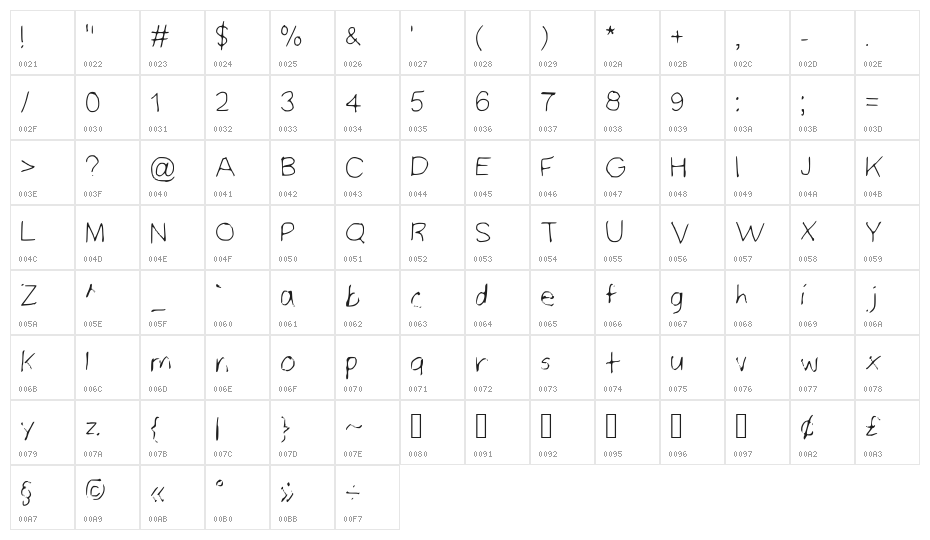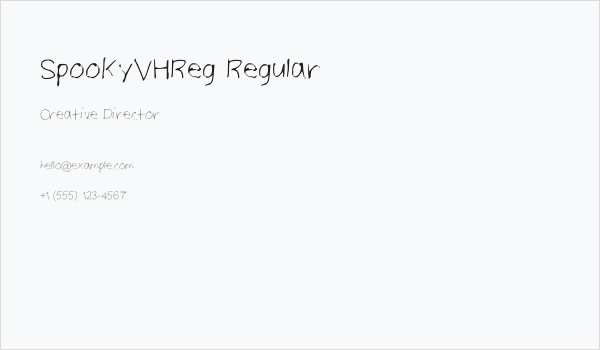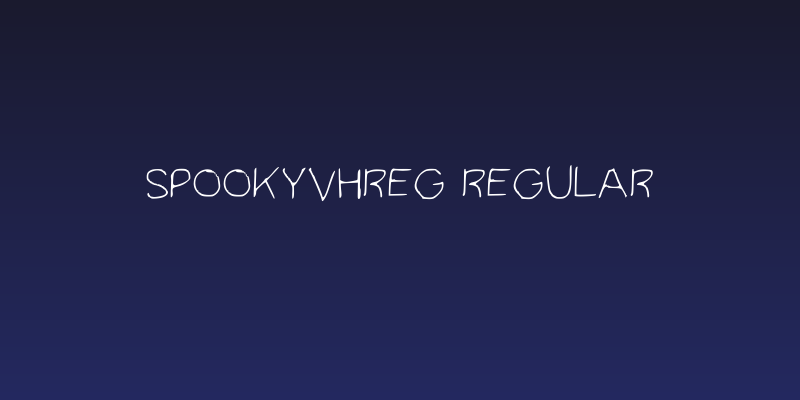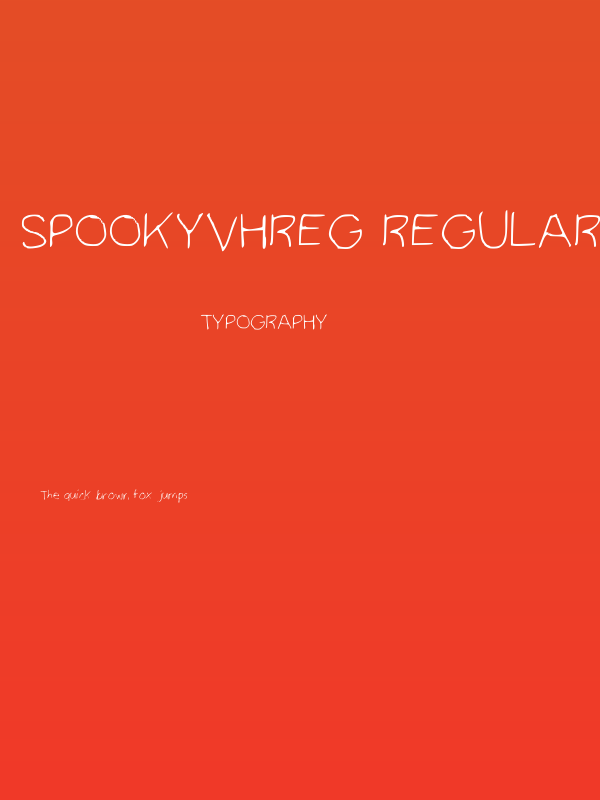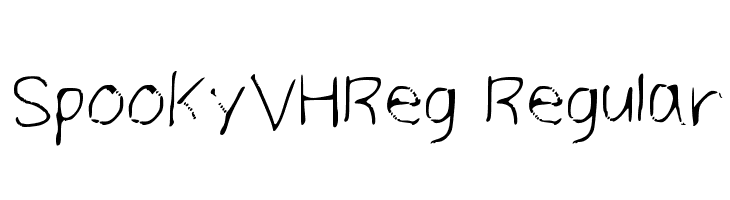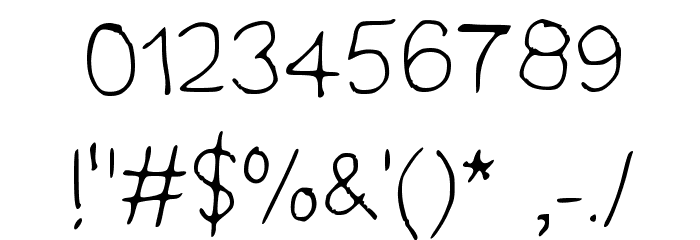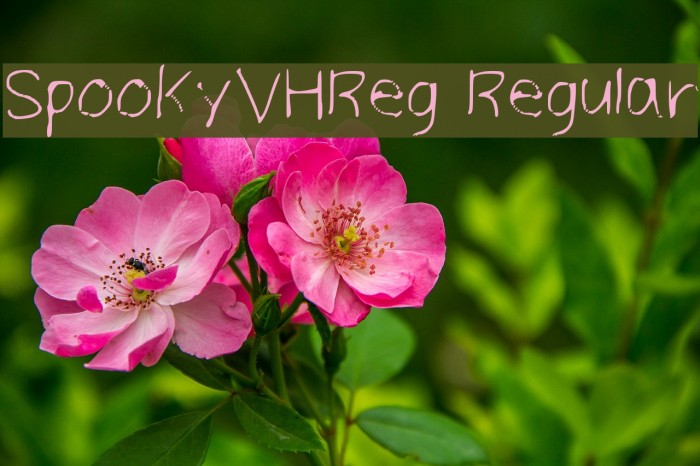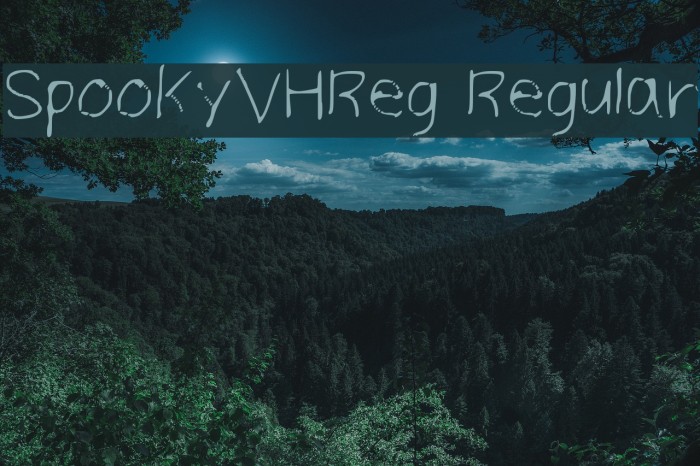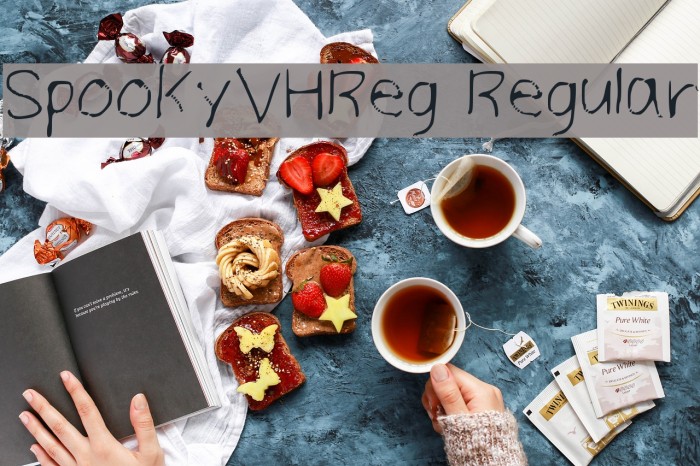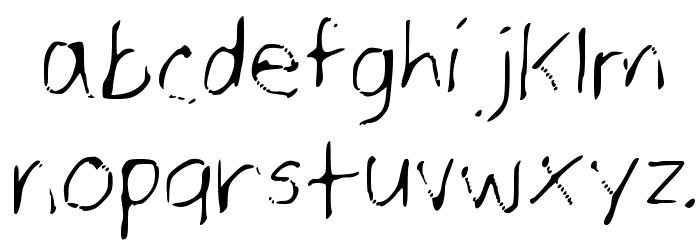
SpookyVHReg Regular Font
SpookyVHReg Regular Description
This font features a distinctive, hand-drawn style with irregular edges and a slightly distressed appearance, giving it a spooky and whimsical feel. The uppercase and lowercase letters maintain a consistent height, while the numbers and special characters follow the same playful design. The strokes are uneven, adding to the eerie aesthetic, and the overall look is reminiscent of handwriting with a touch of unpredictability. This font is perfect for projects that require a unique and eye-catching design, especially those with a Halloween or horror theme. Its quirky and artistic nature makes it stand out in any creative work.
| Proposed Projects | Ideal for Halloween-themed designs, horror movie posters, spooky invitations, and creative art projects. |